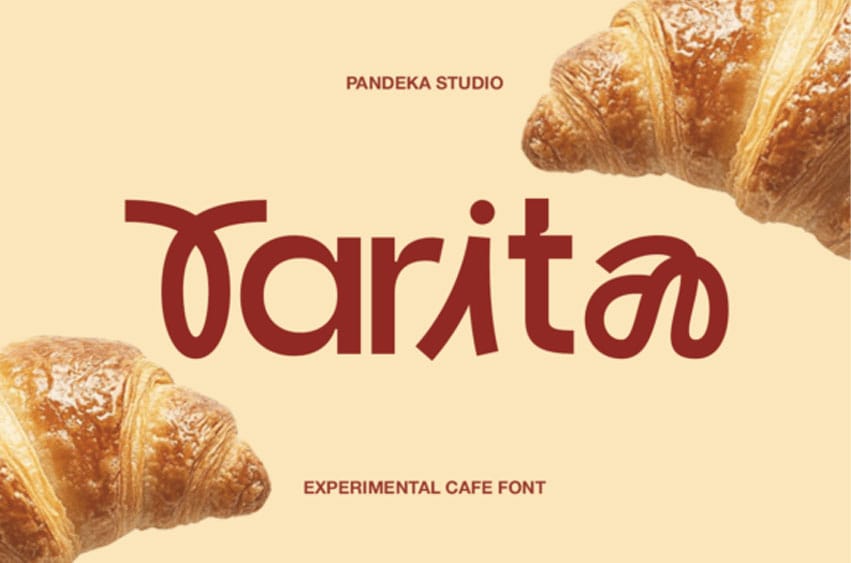
Tarita Font is an experimental café-style display font crafted to bring warmth, character, and a touch of handcrafted charm to your branding projects.
This refreshingly unique display typeface breaks away from convention, offering a delightful and quirky aesthetic that’s perfect for capturing attention in a friendly, approachable way.
The Tarita font features wonderfully rounded, almost bubbly letterforms with distinctive, interconnected elements and surprising ligatures that create a seamless, flowing rhythm.
Designed in a single Regular style, Tarita stands out with its highly expressive letterforms and 44+ alternates, allowing endless playful variations for logos, menus, packaging, storefront signage, and cozy café-themed designs.
Its organic curves, quirky strokes, and friendly rhythm create a unique visual identity that feels inviting and artisanal—perfect for bakeries, coffee shops, brunch spots, patisseries, and any brand seeking a handcrafted, experimental, and modern café aesthetic.
This experimental cafe typeface feels warm, inviting, and wonderfully inventive, evoking the cozy, creative atmosphere of your favorite coffee shop. It’s an ideal choice for cafe branding, bakery signage, playful food packaging, unique menus, or quirky lifestyle blogs.
Tarita gives designers the freedom to mix and match alternates to create custom logotypes with a distinctive personality. From bold menu titles to creative branding systems, this font adds charm and experimentation to every detail.